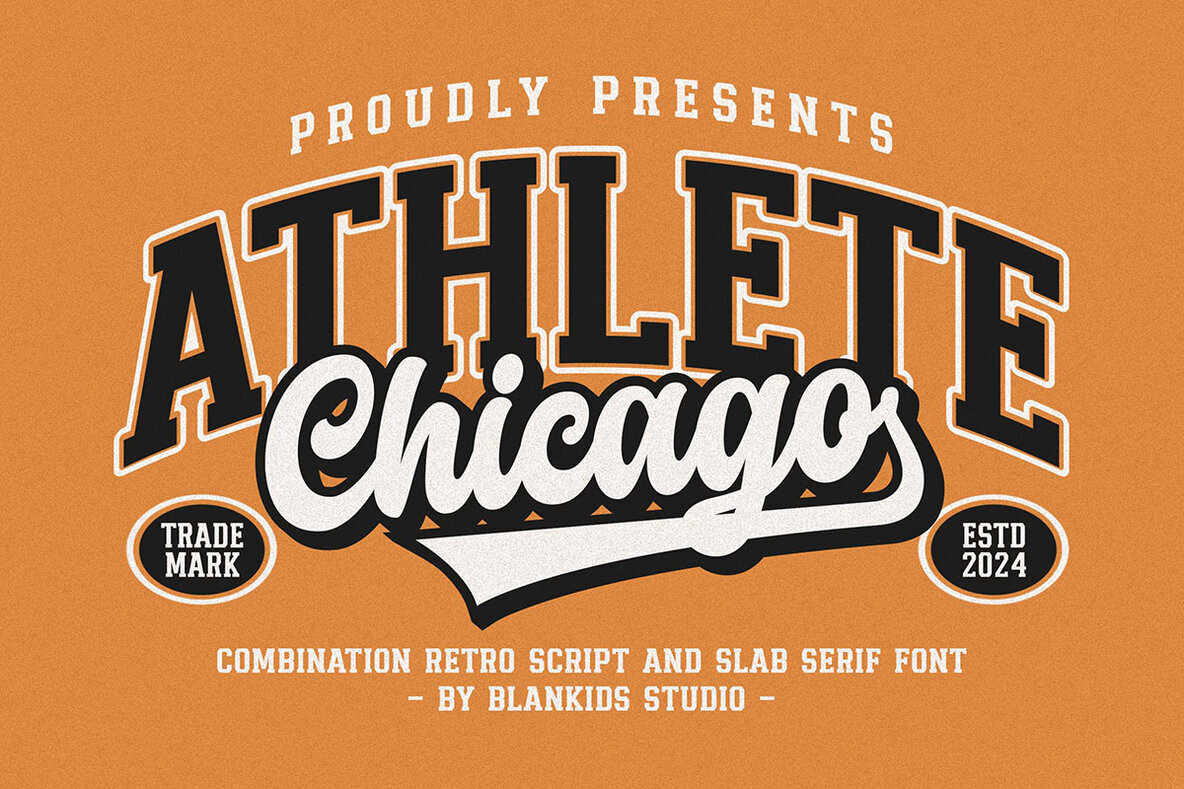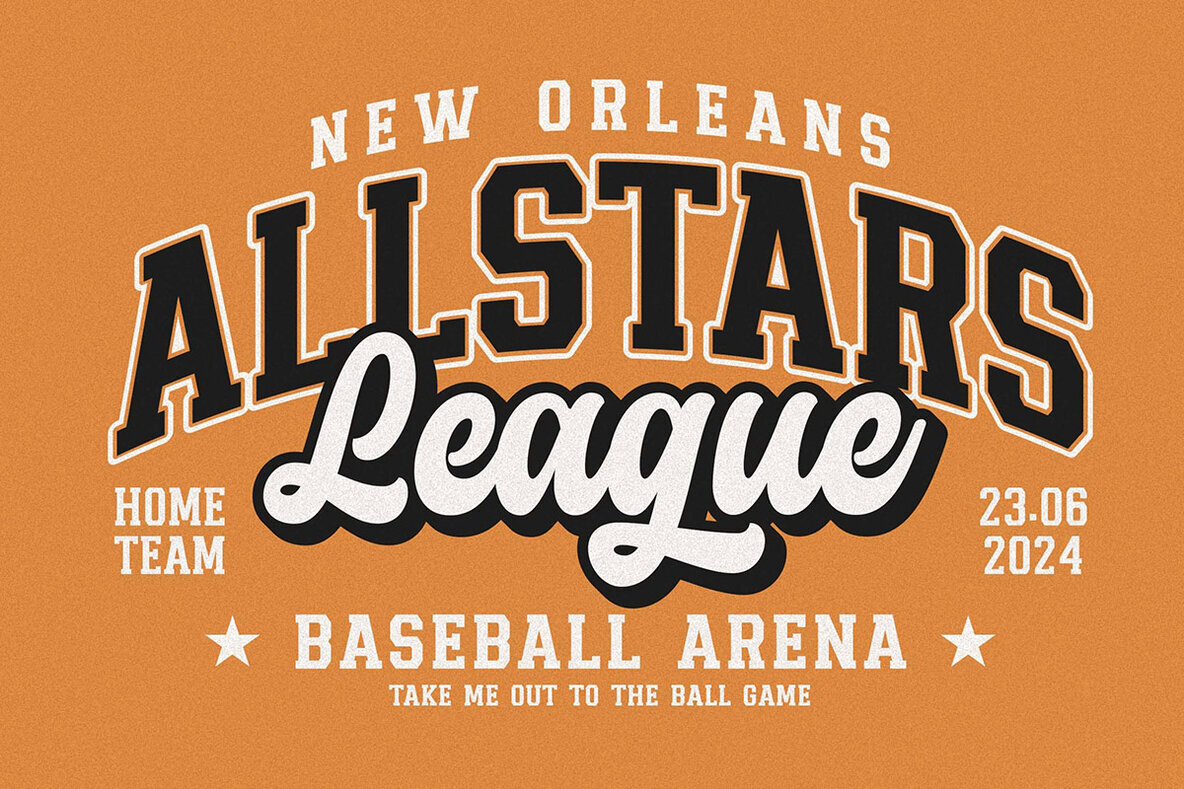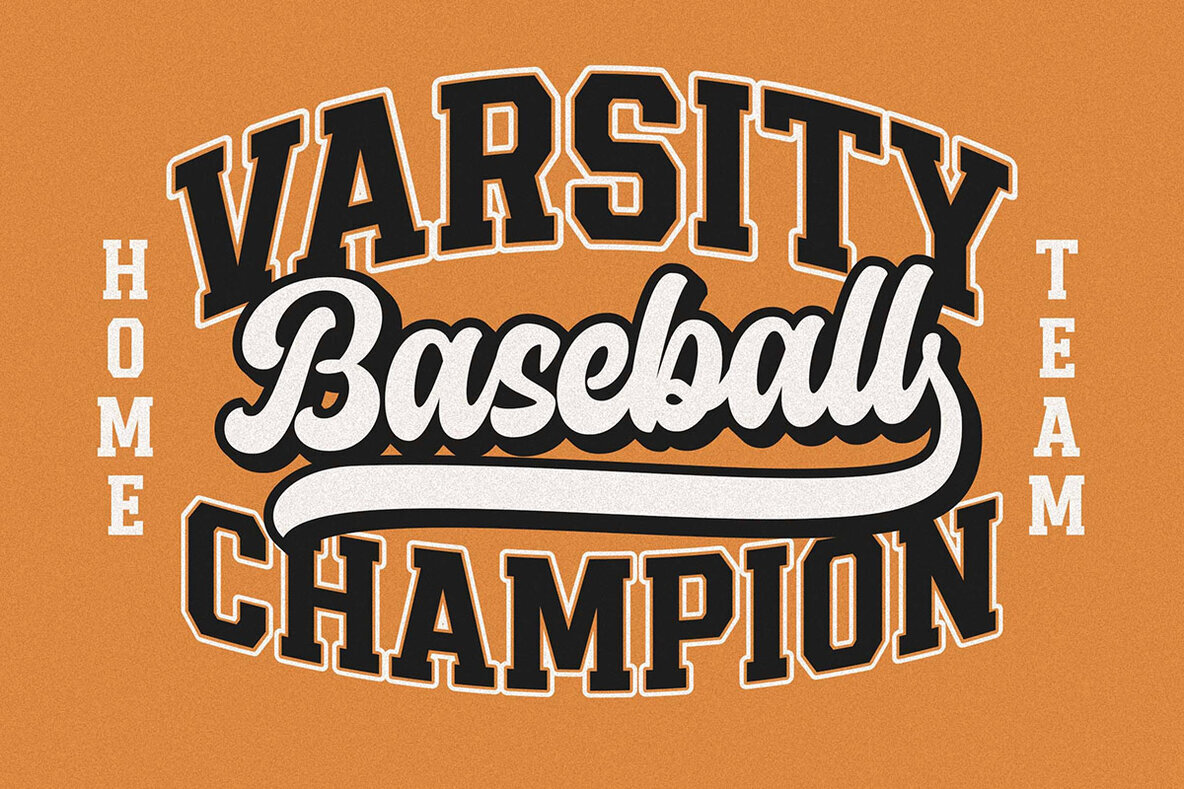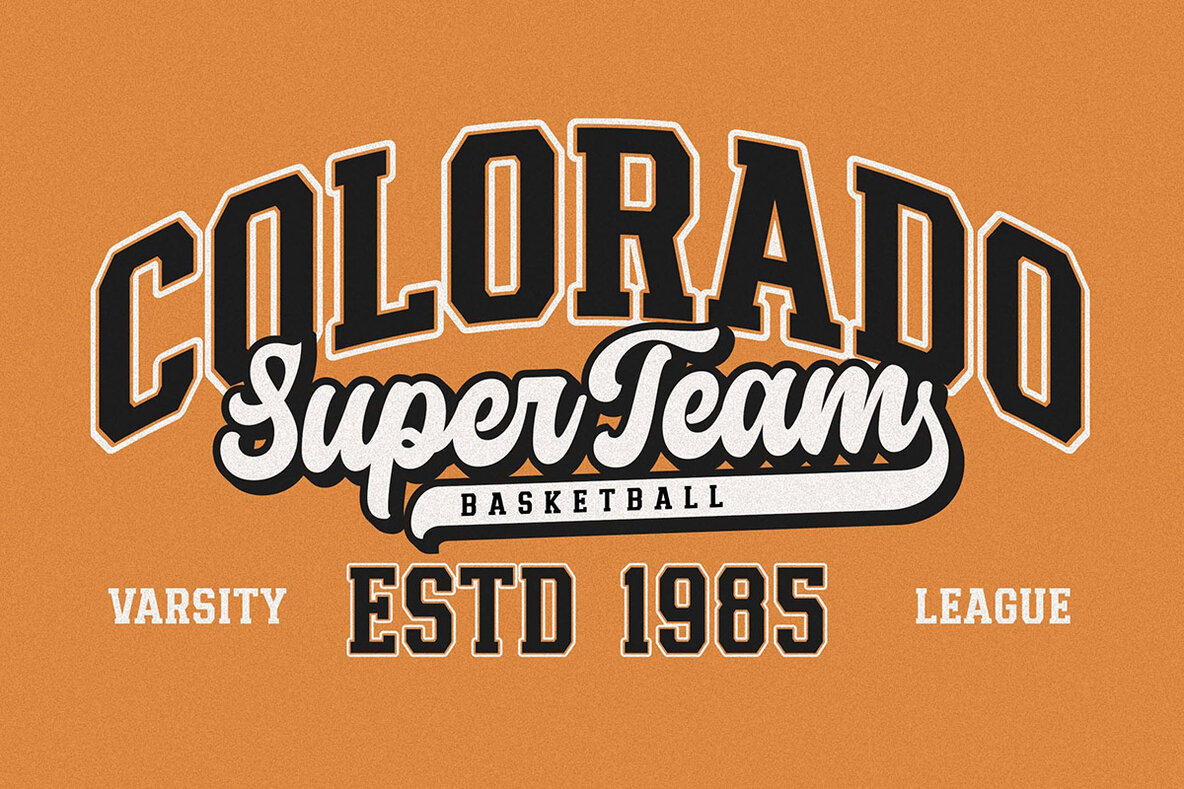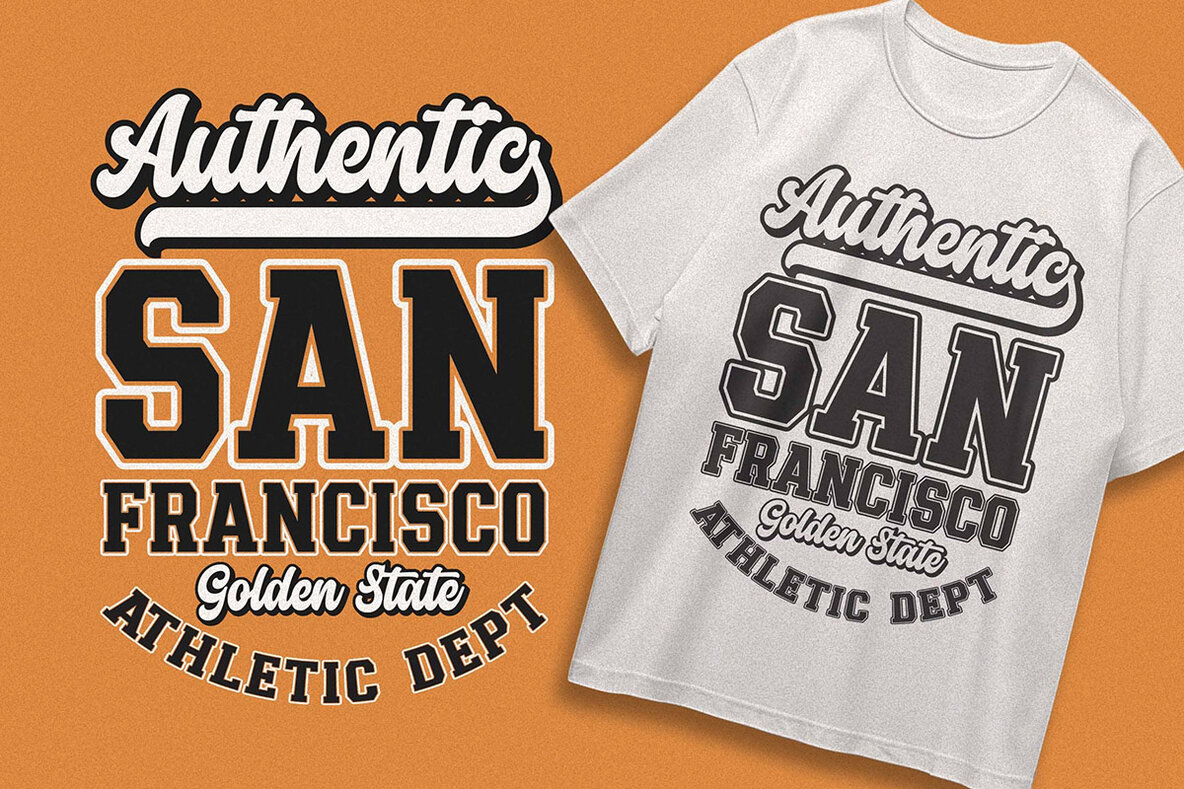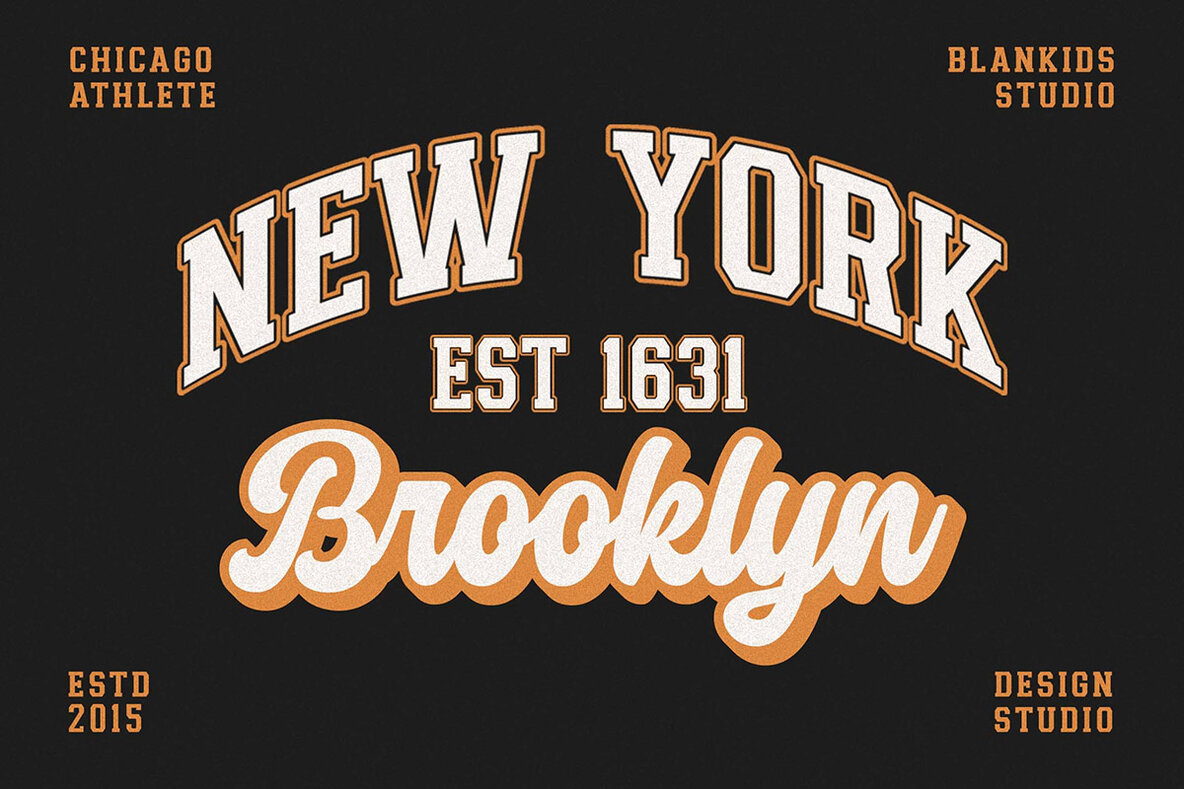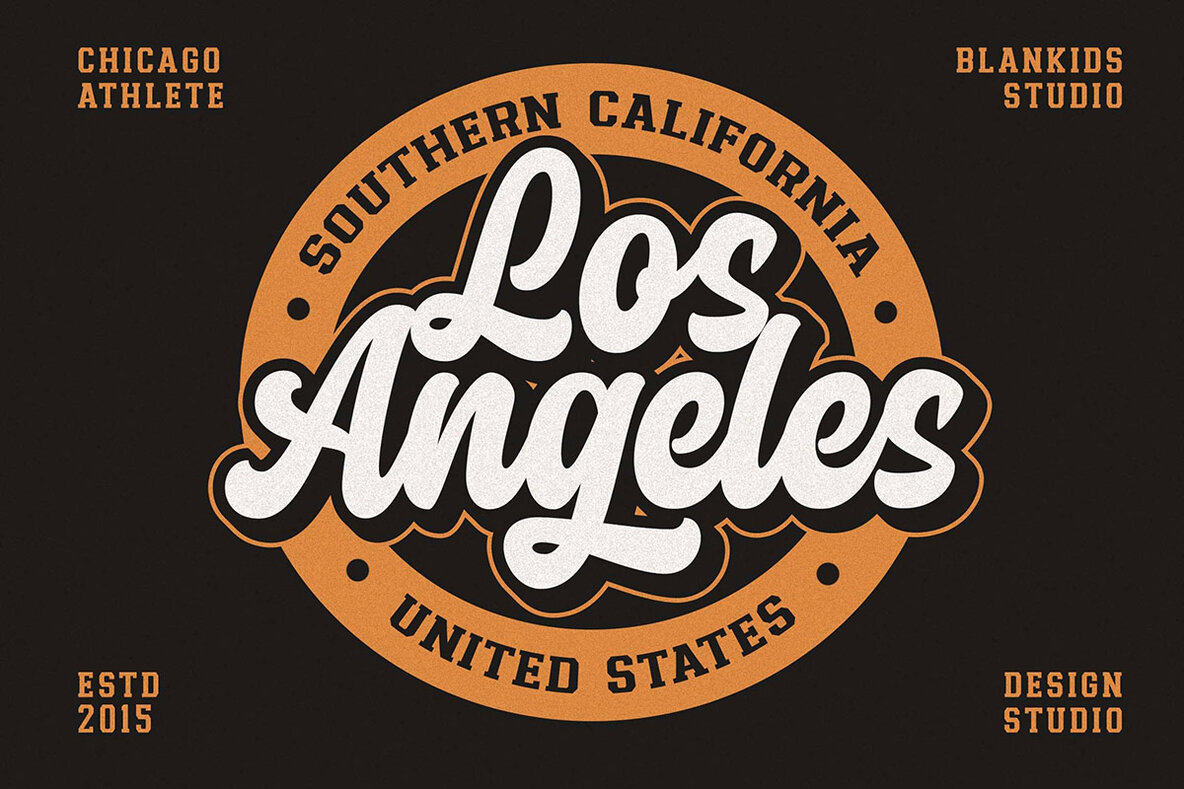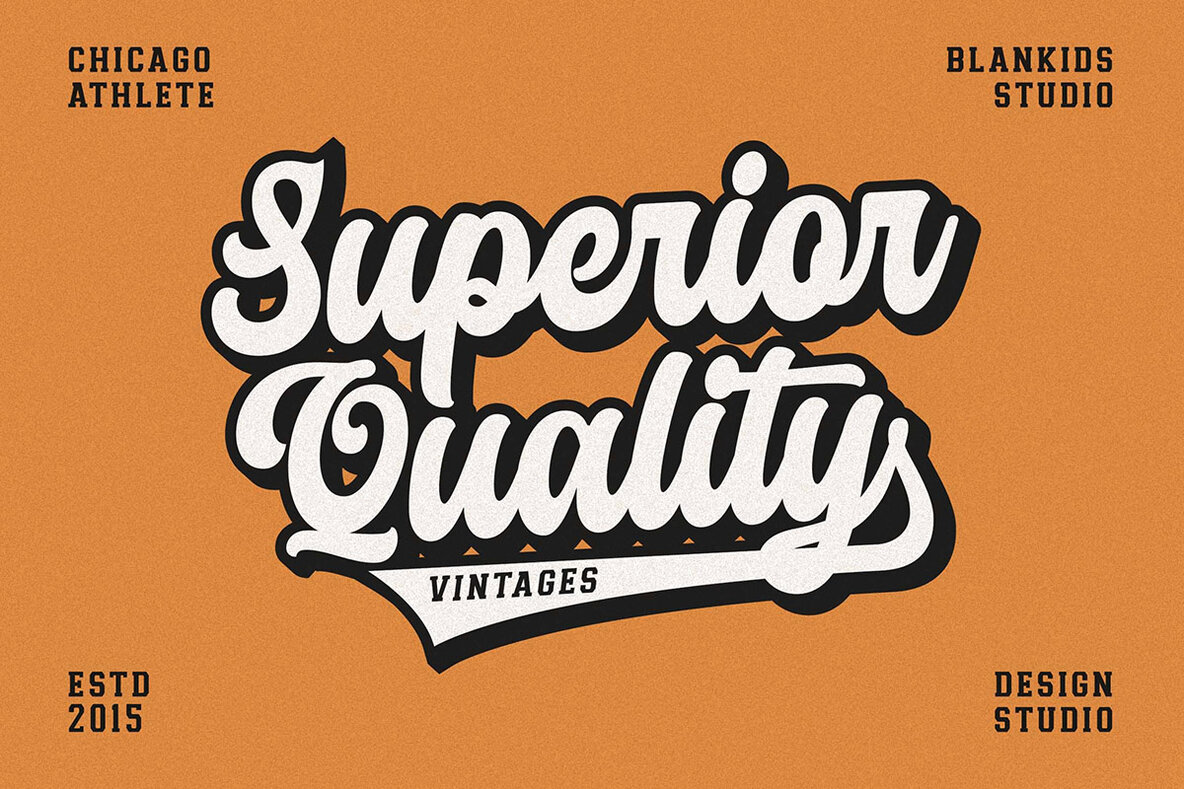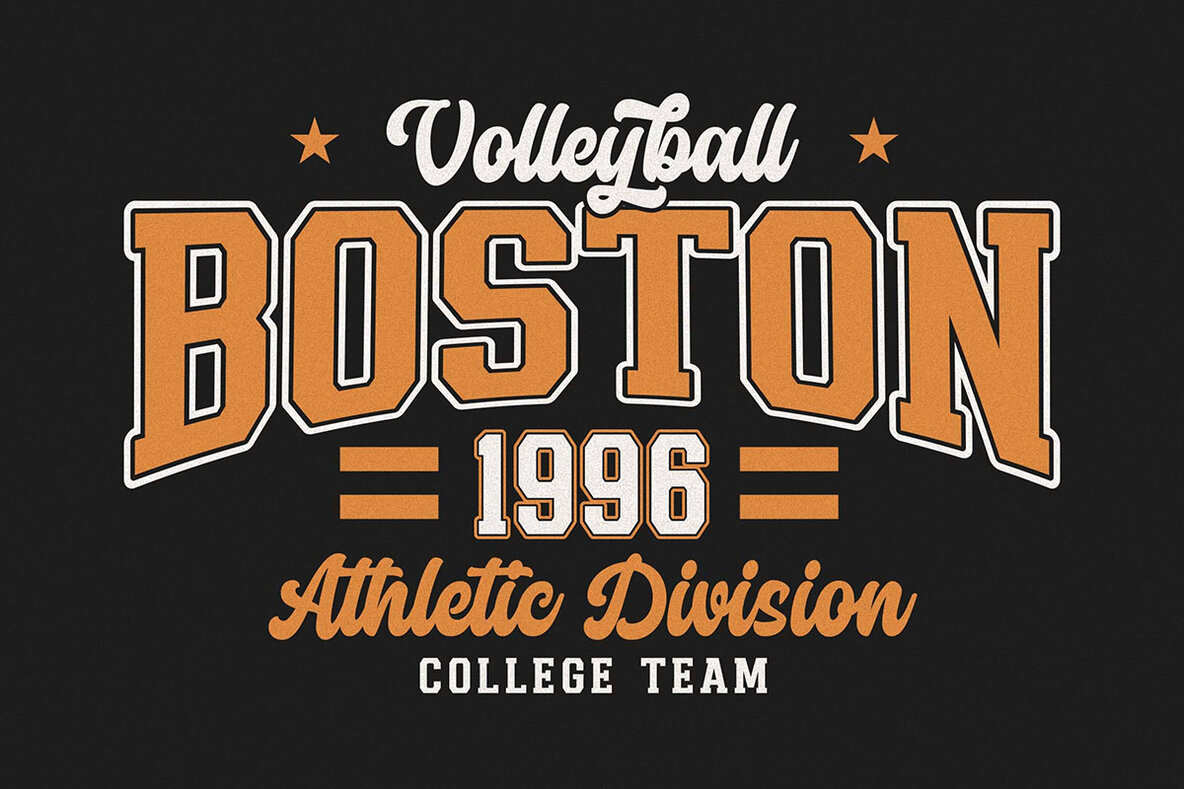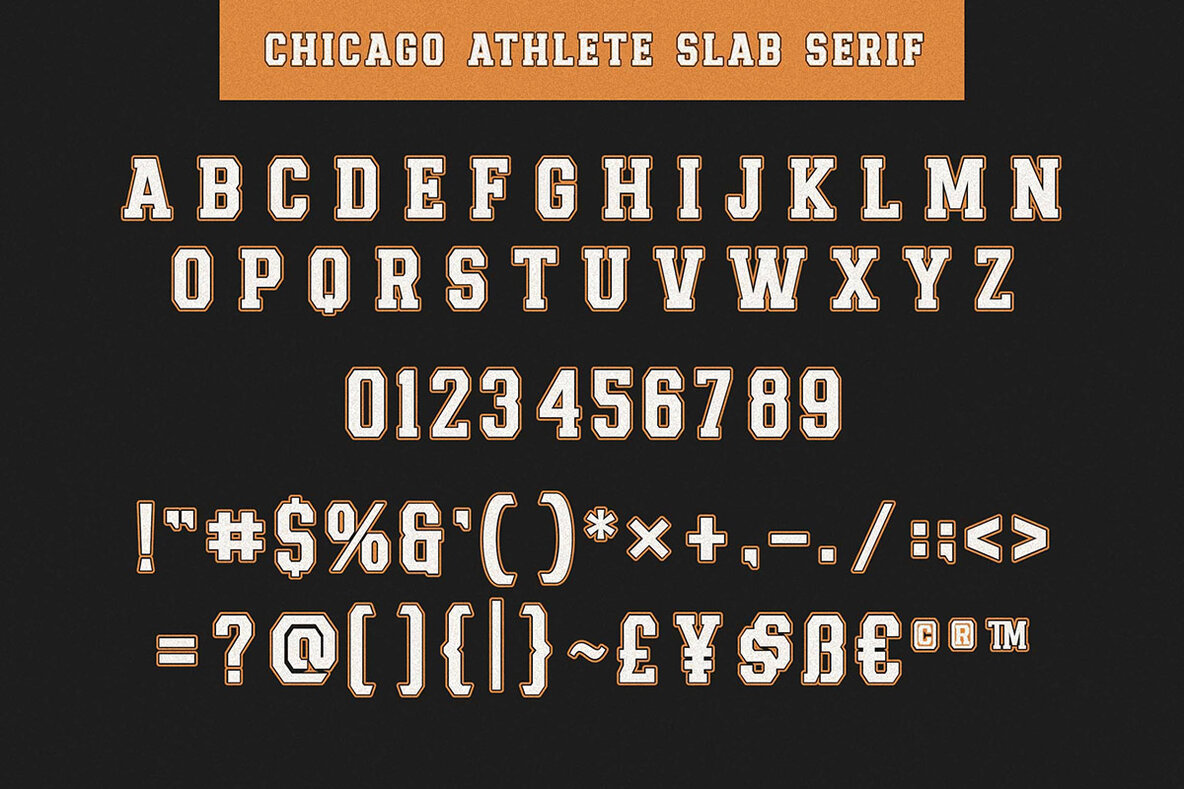
Chicago Athlete Font
The art of typography reaches an athletic peak with Chicago Athlete, a sophisticated retro sporty font crafted by Blankids Studio. Specifically designed for professional branding projects, this versatile typeface is perfect for logos, watermarks, posters, and packaging. Every character in Chicago Athlete exudes a charismatic varsity style with four distinct font combinations. Whether designing for promotional materials or creating bespoke product packaging, this typeface lends an authentic, sporty elegance to your work. Chicago Athlete supports OpenType features to ensure seamless integration across various graphic software, including Canva, Adobe Illustrator, Photoshop, InDesign, and Corel Draw. This font's distinctive style invites creative experimentation in a variety of settings. Enjoy designing with this unique retro sporty typeface.Chicago Athlete: Retro Sporty Elegance in Typography